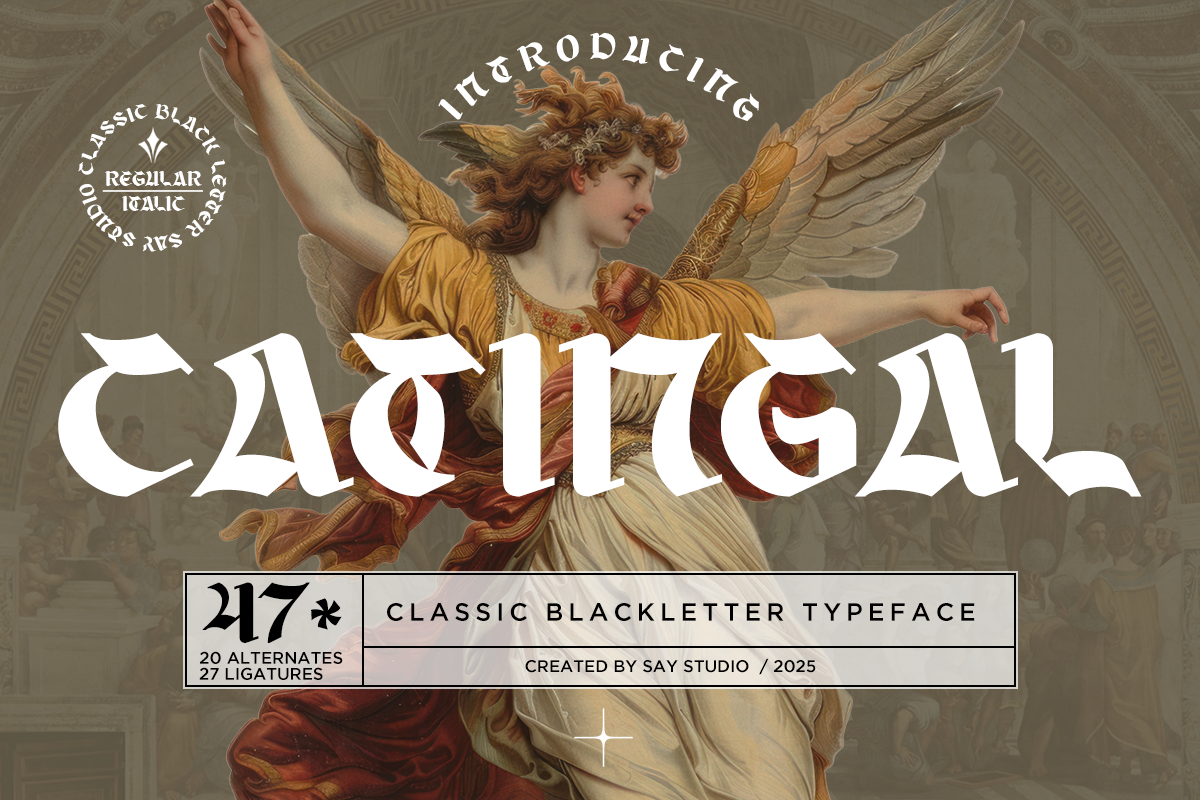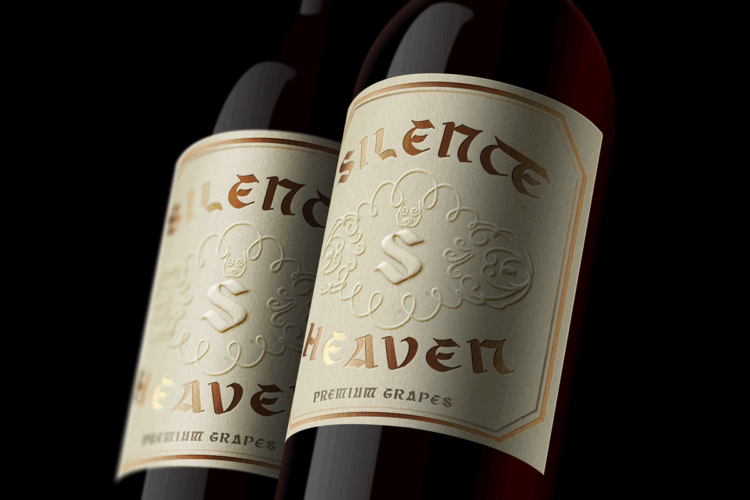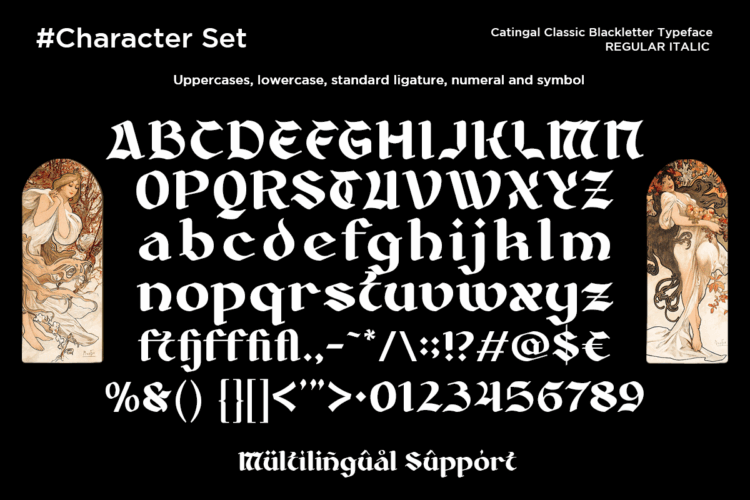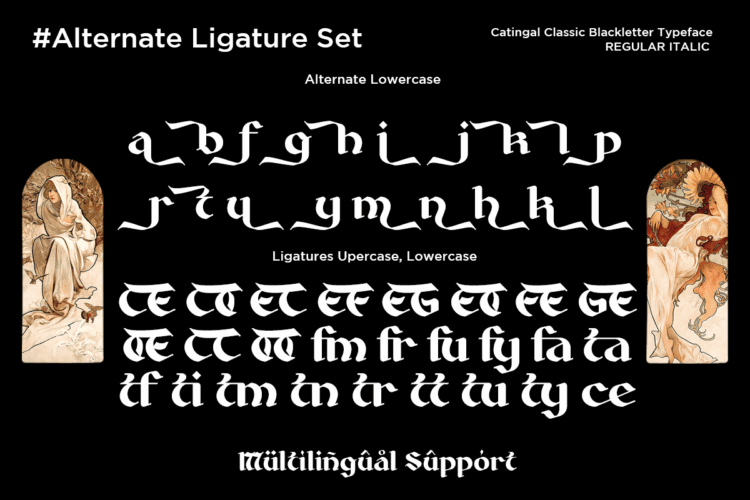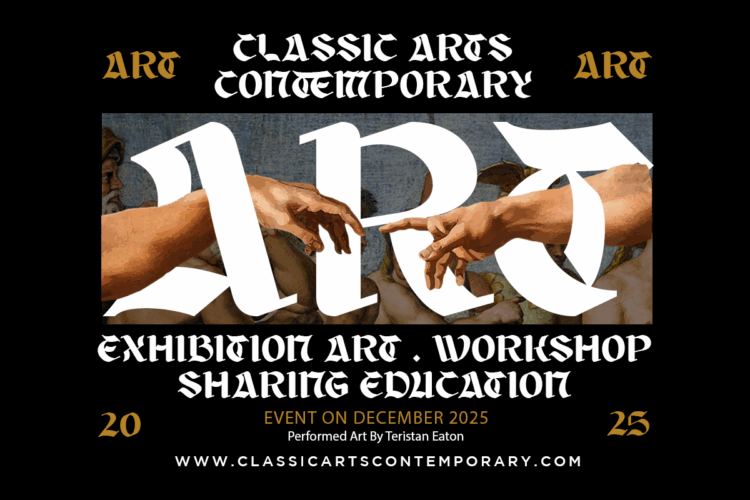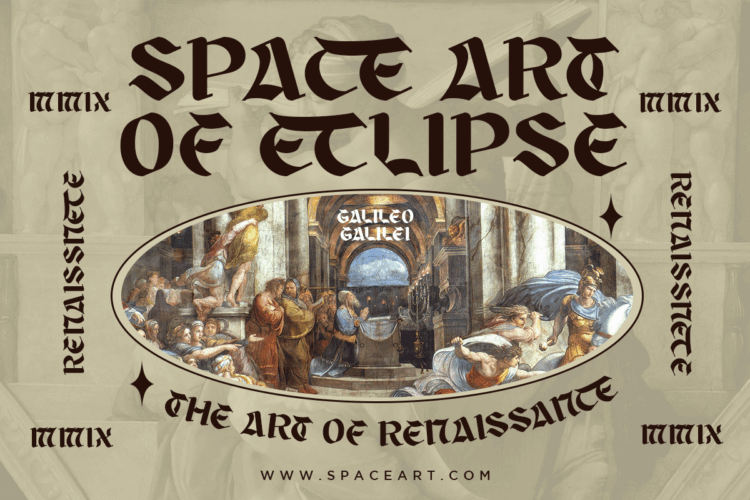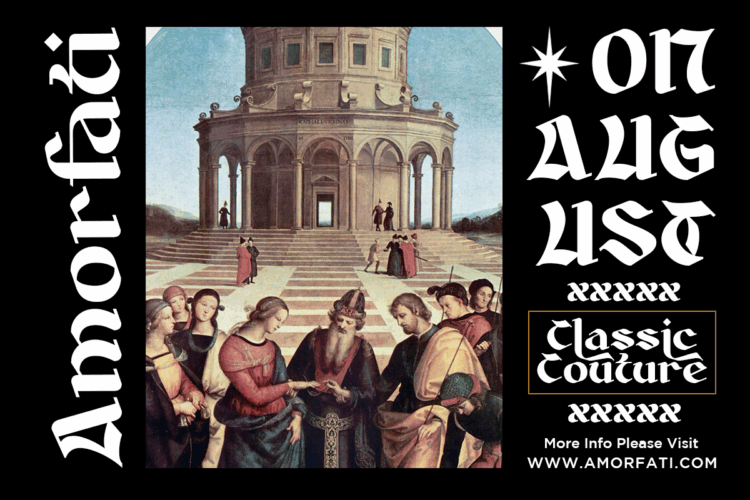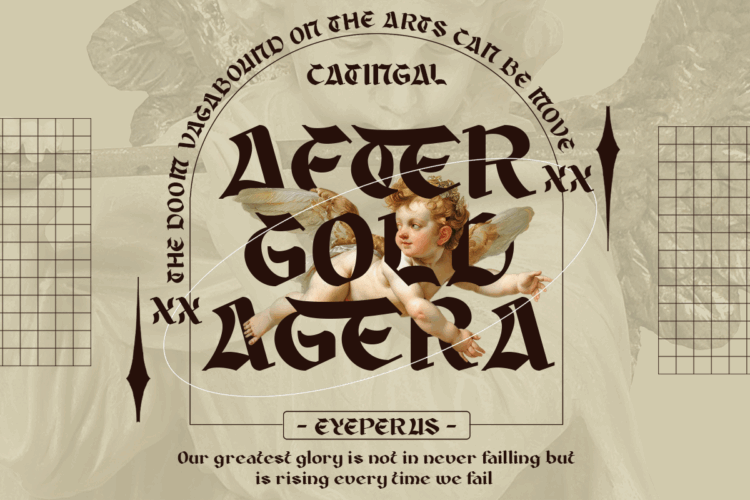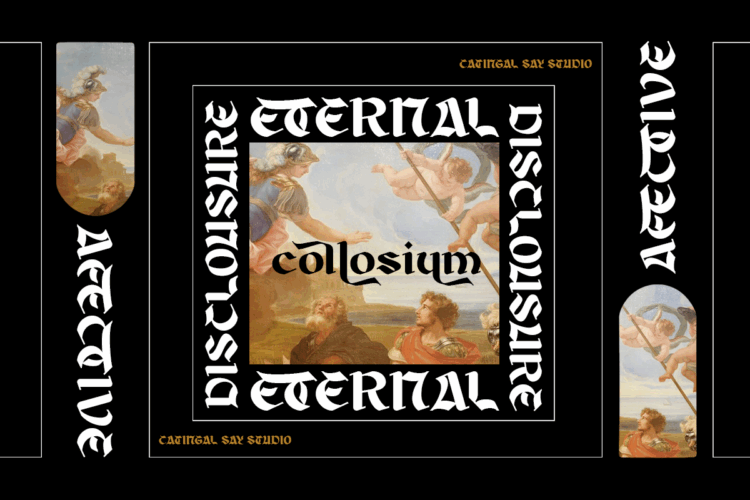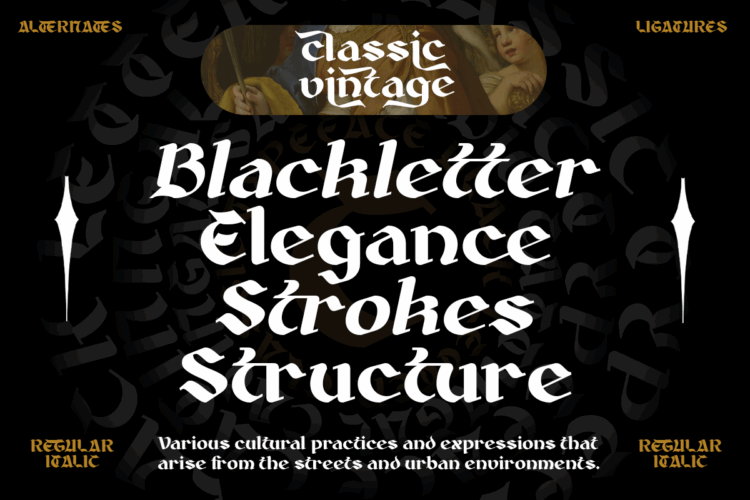
Catingal – Classic Blackletter Font
Catingal is a classic blackletter typeface crafted with sharp Gothic forms and an elegant medieval touch. Featuring 20 stylistic alternates and 27 refined ligatures, this typeface delivers an expressive balance of tradition and modern craftsmanship. Perfect for editorial titles, branding, posters, logos, vintage designs, and dramatic visual themes, Catingal brings a bold, historical, and artistic presence to any project. Its Regular and Italic styles make it versatile for both decorative and professional applications.
– Stylistic Ligatures
– Stylistic Alternates